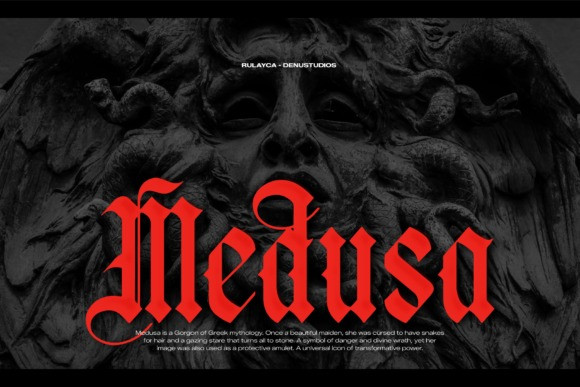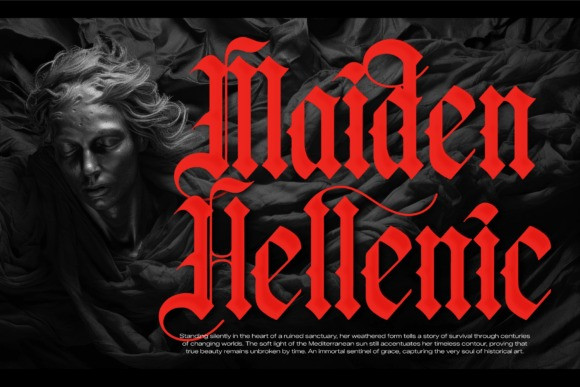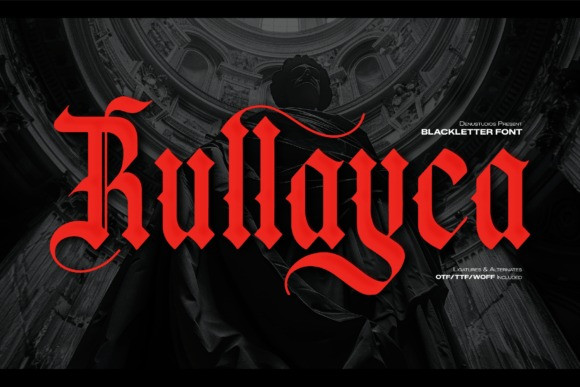
Rullayca Font
Rullayca Font a premium blackletter typeface. This striking font beautifully blends traditional gothic calligraphy with smooth, modern sweeping strokes. The blood-red characters cut flawlessly against dark cathedral photography, moody statues, or grunge textures, making it an exceptional choice for alternative streetwear branding, luxury beverage packaging, metal band logos, tattoo parlor signage, and dramatic book titles.